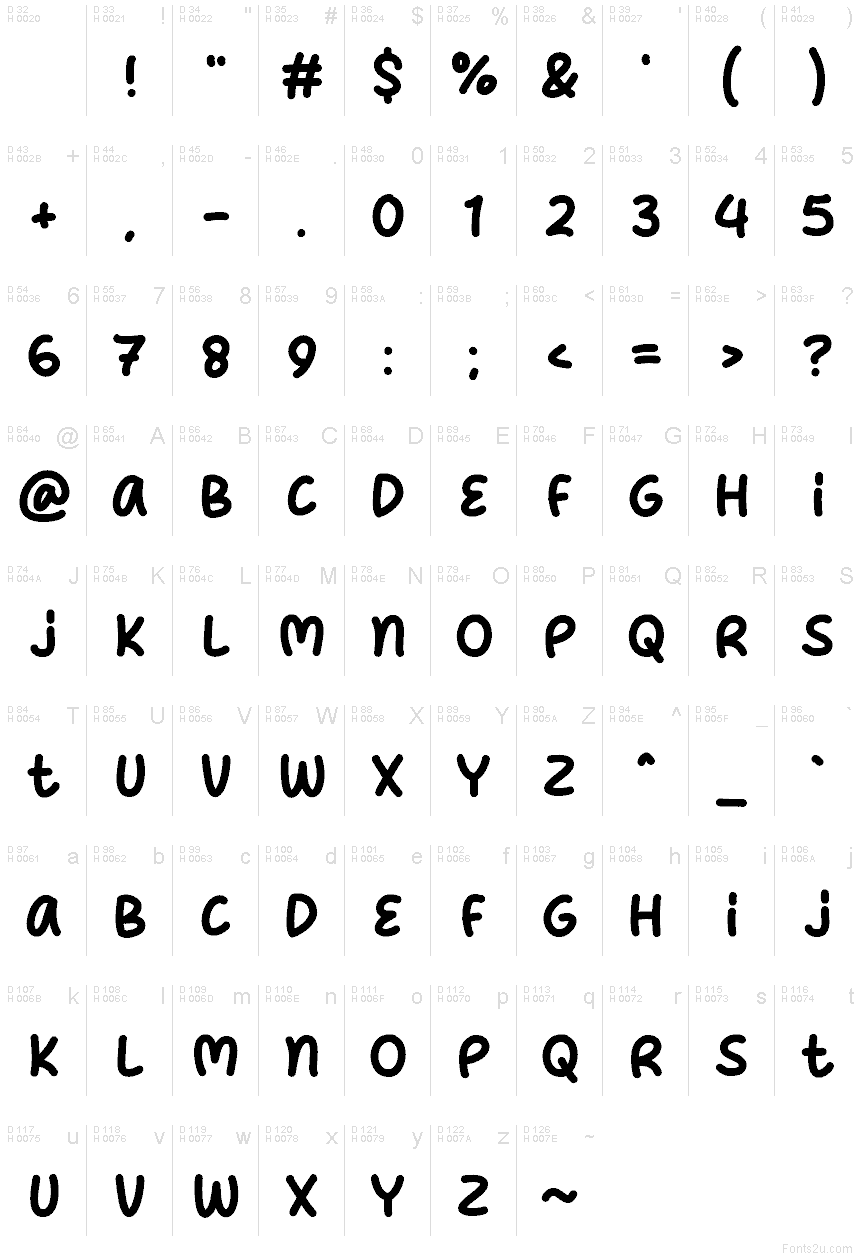
Circle Cake
Circle Cake font by MJType is a handwritten free font that captures a friendly and casual tone. Its rounded and approachable design makes it ideal for contemporary applications where warmth and relatability are key.